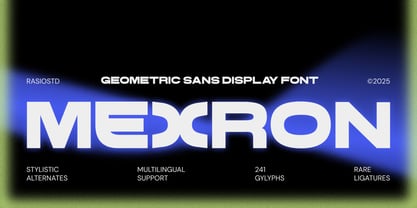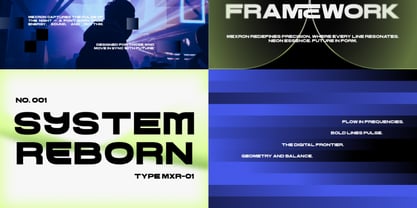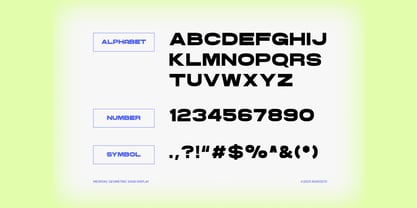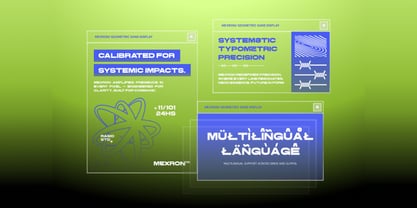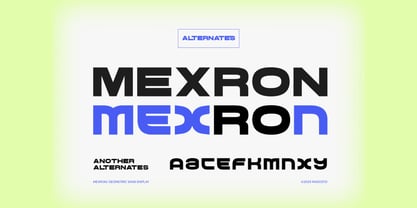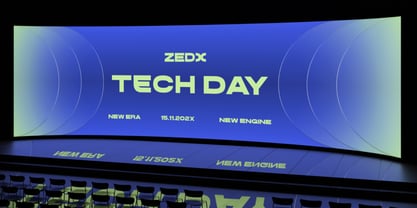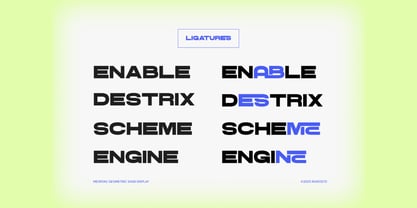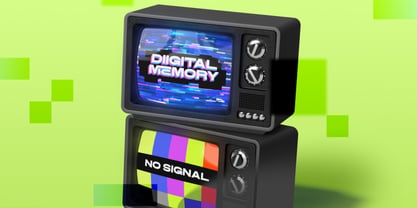
Mexron
by Rasio Studio
The Mexron Font Family was designed by Fajar Indra and published by Rasio Studio. Mexron contains 1 styles. More about this family
Mexron is a bold geometric sans display typeface engineered for systematic precision and futuristic visual impact. Built on clean structural grids and sharp geometric construction, it delivers strong typographic presence with controlled proportions and modern rhythm. Mexron is highly relevant for technology startups, gaming brands, digital product launches, UI/UX systems, posters, esports branding, social media campaigns, modern editorial covers, and futuristic packaging. Its geometric clarity and systematic construction make it perfect for projects that demand innovation, confidence, and forward-thinking design language.
Designers: Fajar Indra
Current Foundry: Rasio Studio